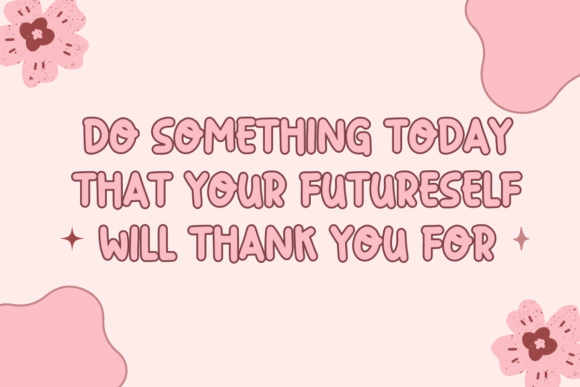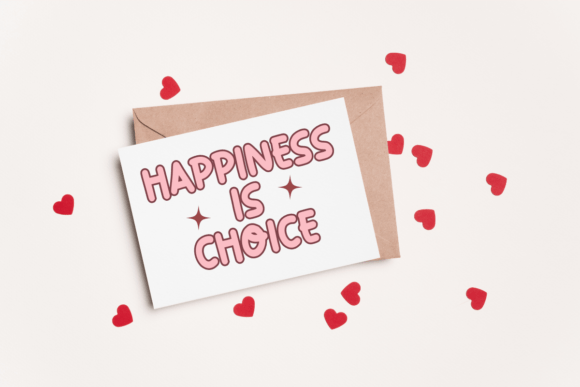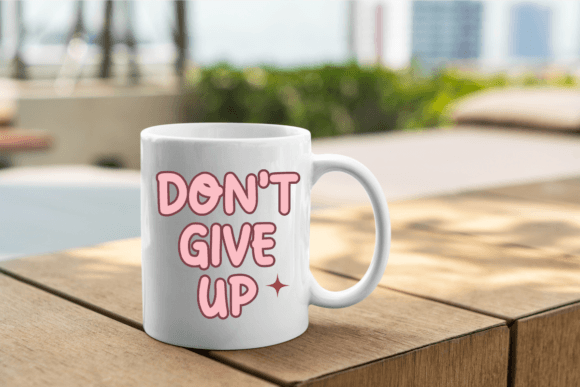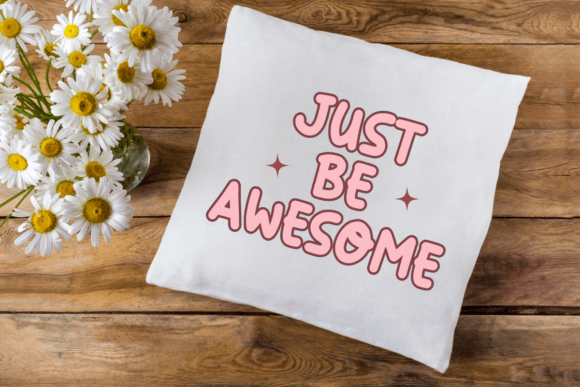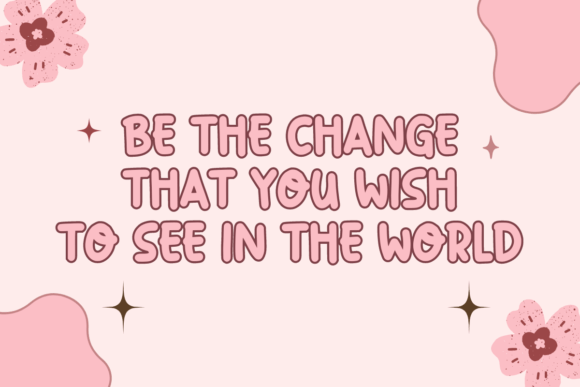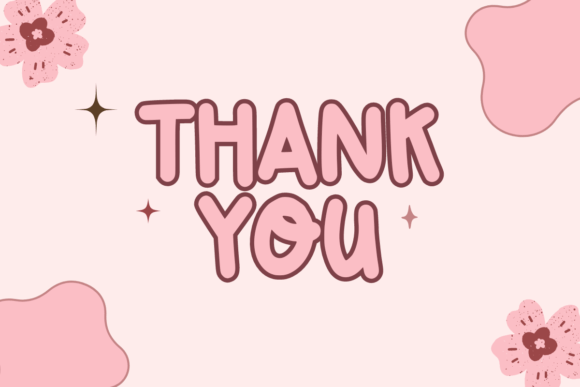
Born Quirky Font: Add a Touch of Whimsy to Your Designs
In the world of typography, fonts play a crucial role in conveying the tone and personality of a design. If you’re looking for a font that can add a dash of playfulness and eccentricity to your projects, look no further than the Born Quirky Font. This fun display font is designed to infuse your designs with a distinctive, offbeat aesthetic that’s sure to make them uniquely memorable.
The Birth of Born Quirky
Born Quirky is a display font that celebrates creativity and individuality. Its unconventional letterforms and lively strokes are carefully crafted to create a sense of whimsy and character that’s hard to find in traditional fonts. Whether you’re a designer, crafty DIY enthusiast, or social media influencer, this font is perfect for projects that require a touch of personality and flair.
What Makes Born Quirky Special?
So, what sets Born Quirky apart from other fonts? Here are a few key features that make it a standout:
- Unconventional letterforms: Born Quirky’s letterforms are anything but ordinary. With its unique and playful design, this font adds a touch of eccentricity to any project.
- Lively strokes: The font’s strokes are lively and dynamic, giving your designs a sense of energy and movement.
- Distinctive aesthetic: Born Quirky’s offbeat aesthetic is sure to make your designs stand out from the crowd.
Born Quirky is ideal for projects that celebrate creativity and individuality. Here are some ideas for using this font:
- Branding and logos: Add a touch of whimsy to your brand’s logo or identity.
- Social media graphics: Make your social media posts stand out with Born Quirky’s playful font.
- Invitations and party decor: Add a dash of personality to your party invitations, decorations, and favors.
- DIY crafts: Use Born Quirky to add a personal touch to your DIY craft projects, such as handmade cards, gift tags, or scrapbook pages.
Why Choose Born Quirky?
With so many fonts to choose from, why should you choose Born Quirky? Here are a few reasons:
- Unique and memorable: Born Quirky’s distinctive aesthetic ensures that your designs will be remembered.
- Versatile: Born Quirky can be used for a wide range of projects, from digital designs to print materials.
Get Ready to Add Some Whimsy to Your Designs